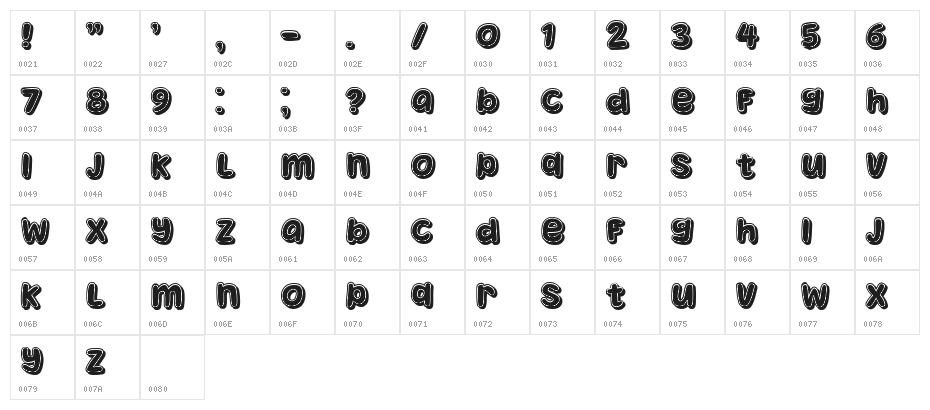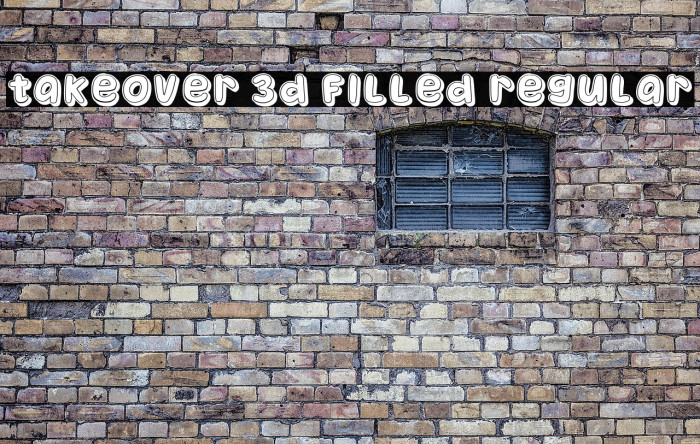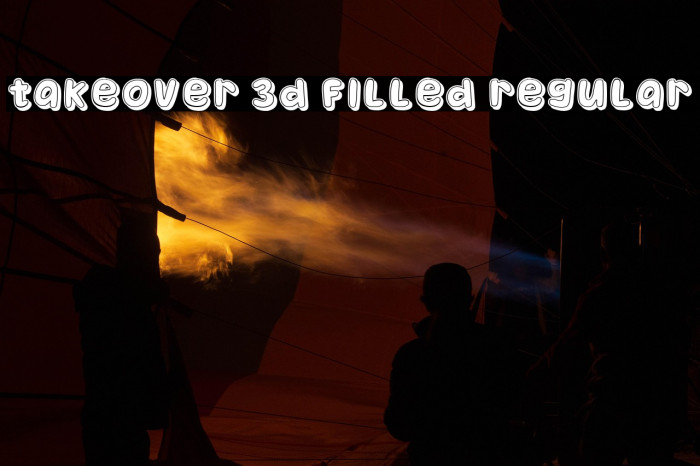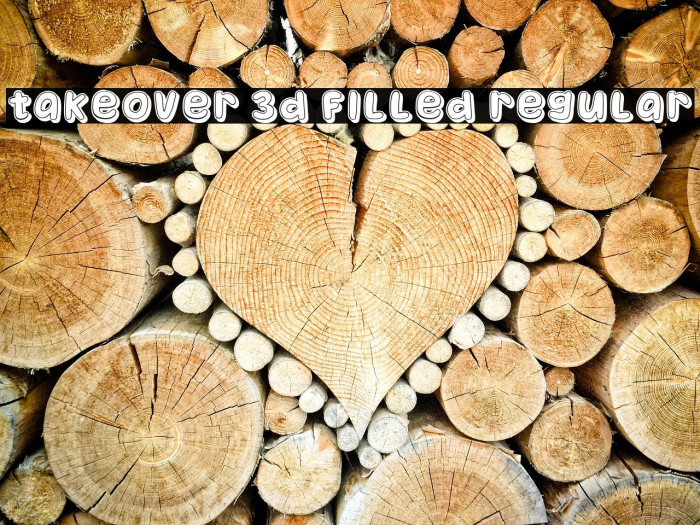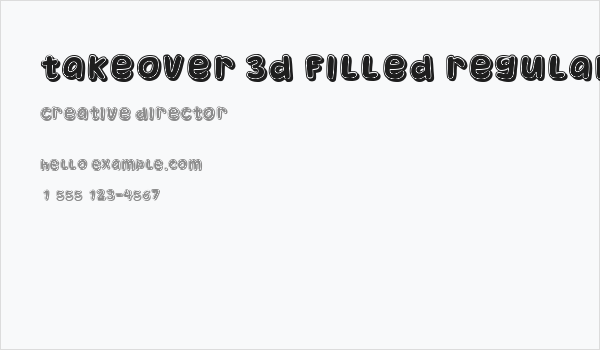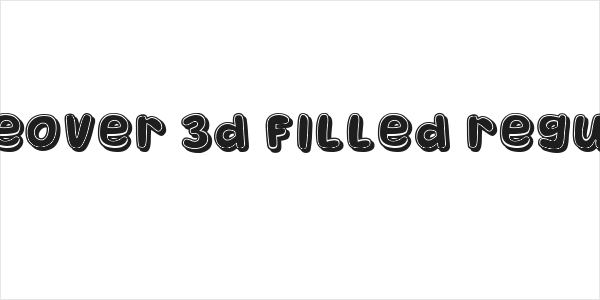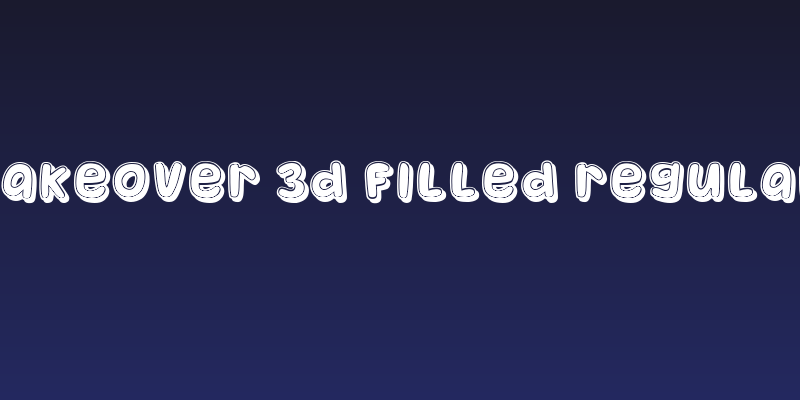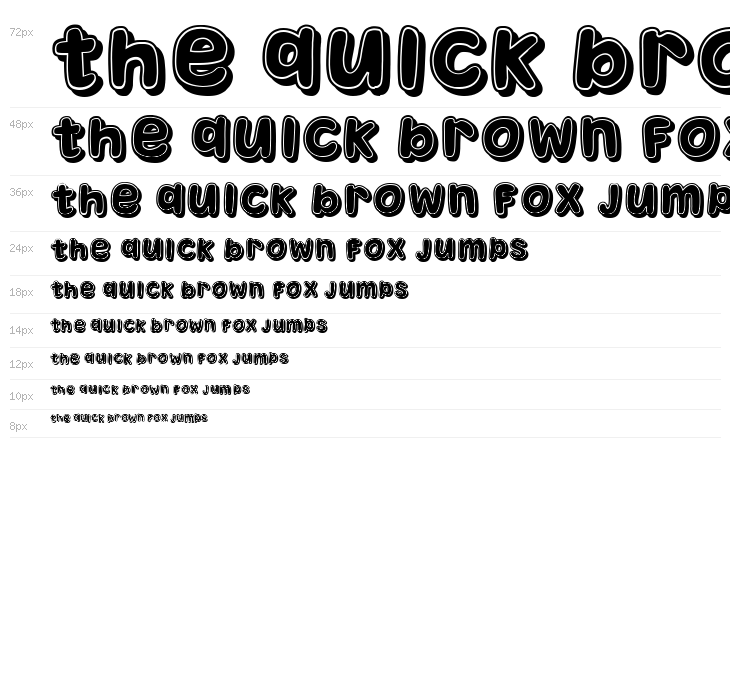
Takeover 3D Filled Regular Font
Takeover 3D Filled Regular Description
This playful and bold font features a 3D filled style that gives it a unique and eye-catching appearance. The letters are rounded with a thick outline, creating a sense of depth and dimension. The uppercase and lowercase characters maintain a consistent style, with a whimsical and fun aesthetic that is perfect for creative projects. The numbers and special characters are designed to match the overall theme, ensuring a cohesive look across all text elements. This font is ideal for projects that require a lively and engaging typeface.
| Overall Style | Playful, Fun, Creative |
| Proposed Projects | Ideal for children's books, playful branding, posters, and creative social media graphics. |